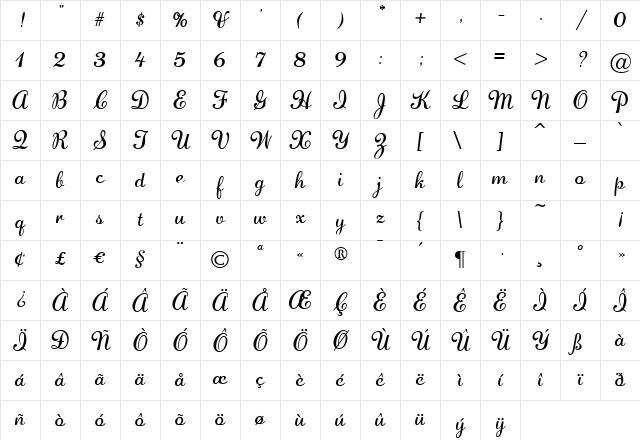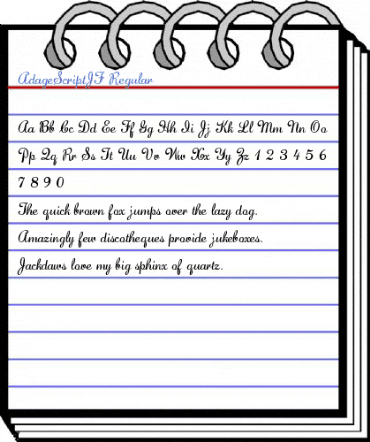
AdageScriptJF Regular Free Font
AdageScriptJF Regular
Design Context for AdageScriptJF
AdageScriptJF flows with the natural rhythm of handwritten lettering, making it ideal for designs that call for warmth and personal expression.
Font Pairing: Combine AdageScriptJF with a simple geometric sans for maximum contrast - the tension between flowing curves and clean structure is a classic typographic pairing.
Pro Tip: Use AdageScriptJF for short runs of text - names, titles, or taglines. Extended body copy in script faces tires the eye quickly.